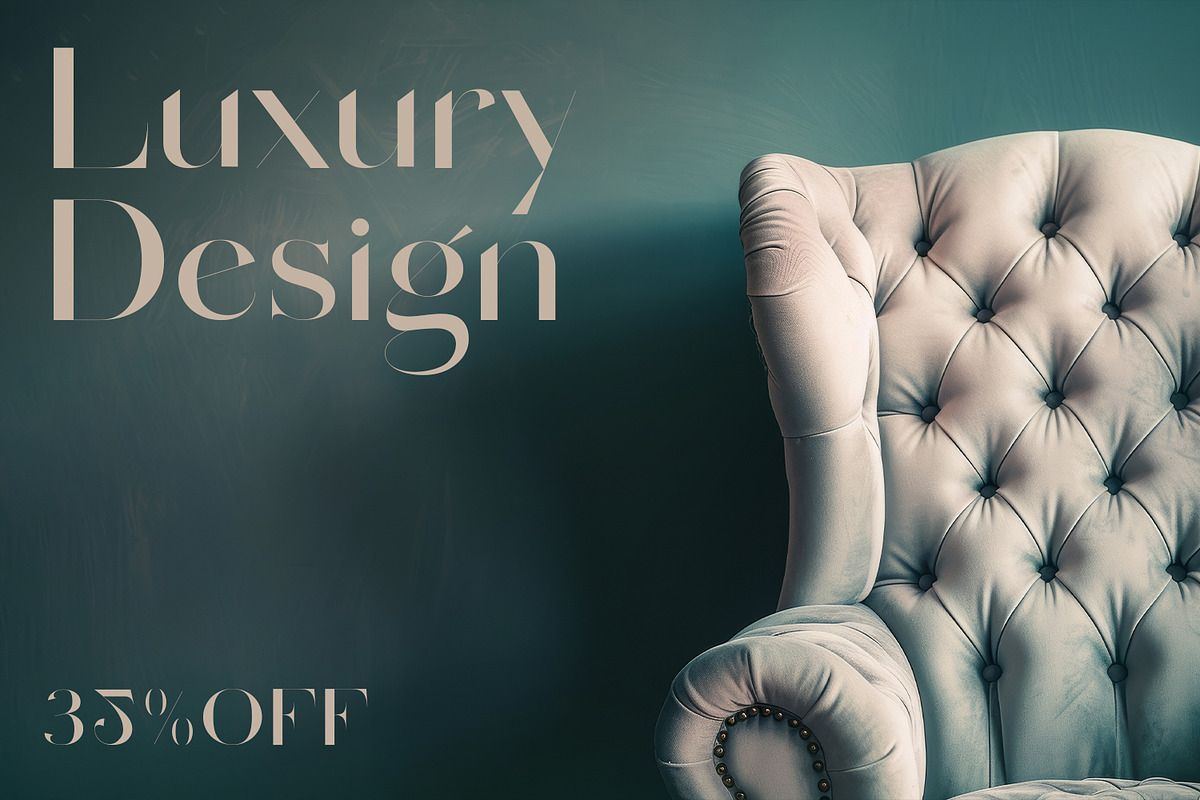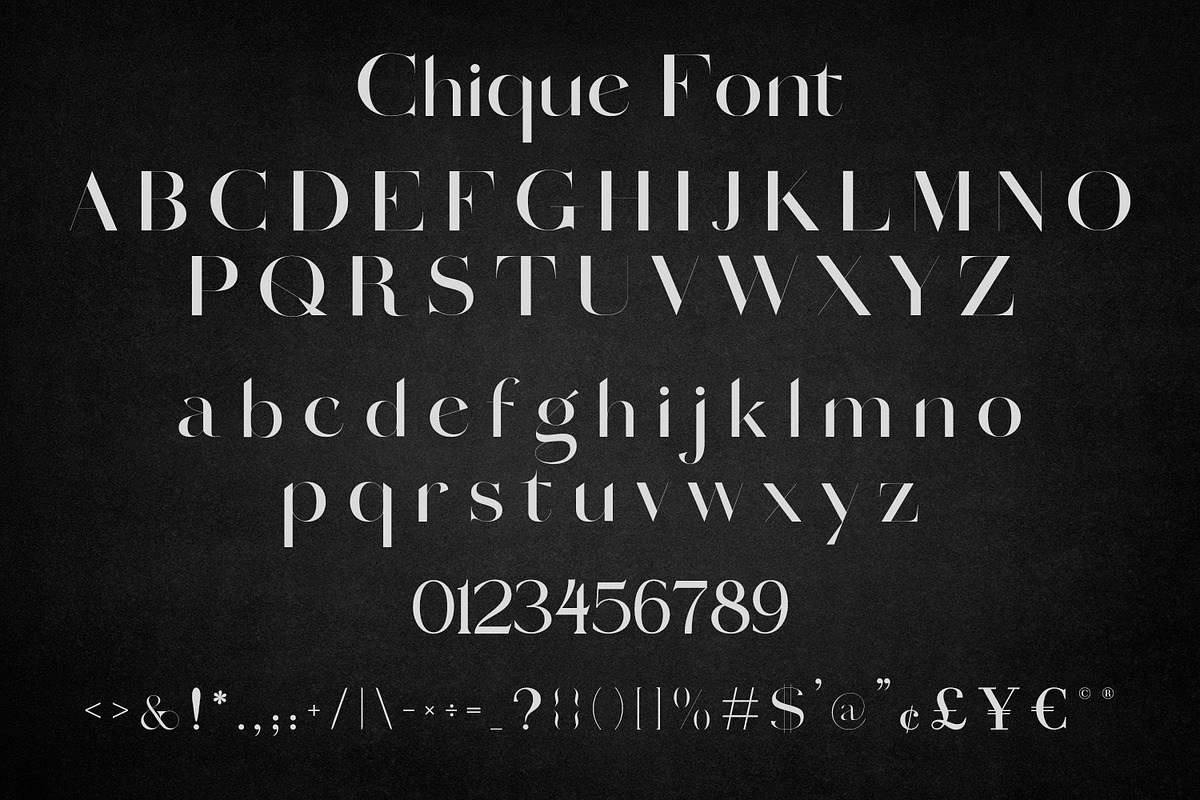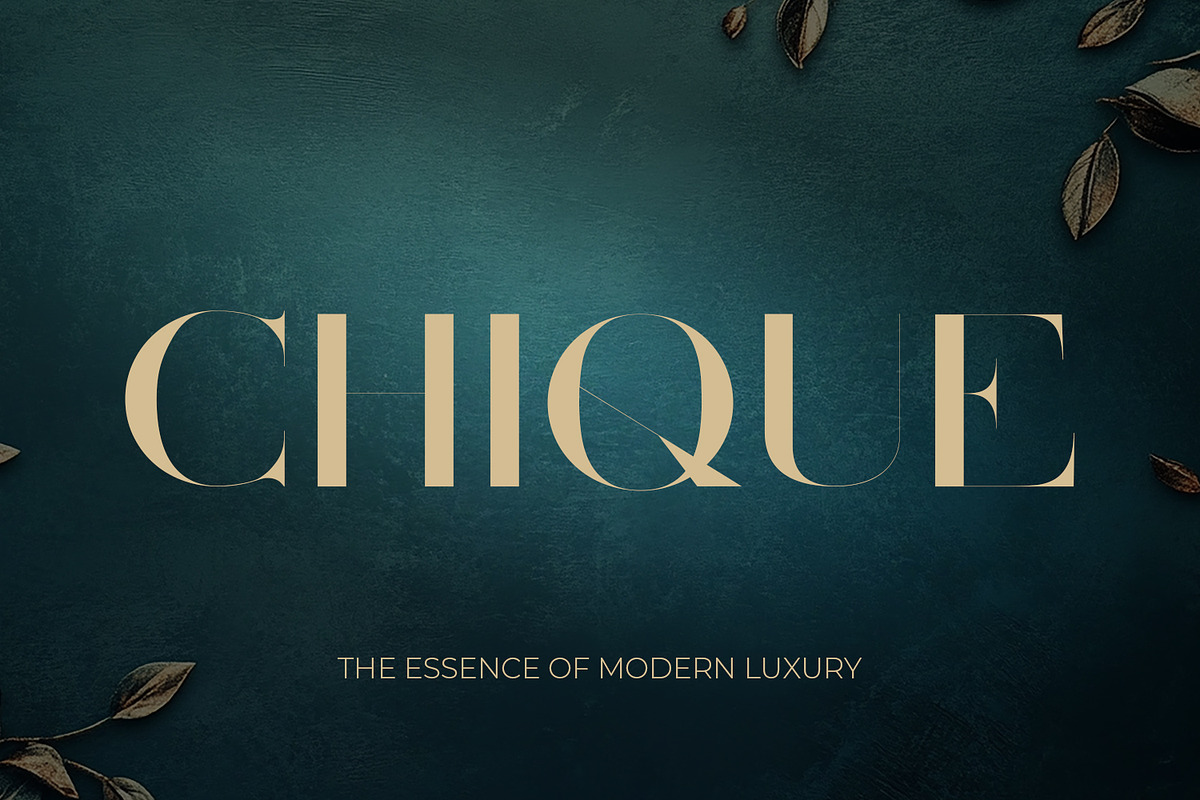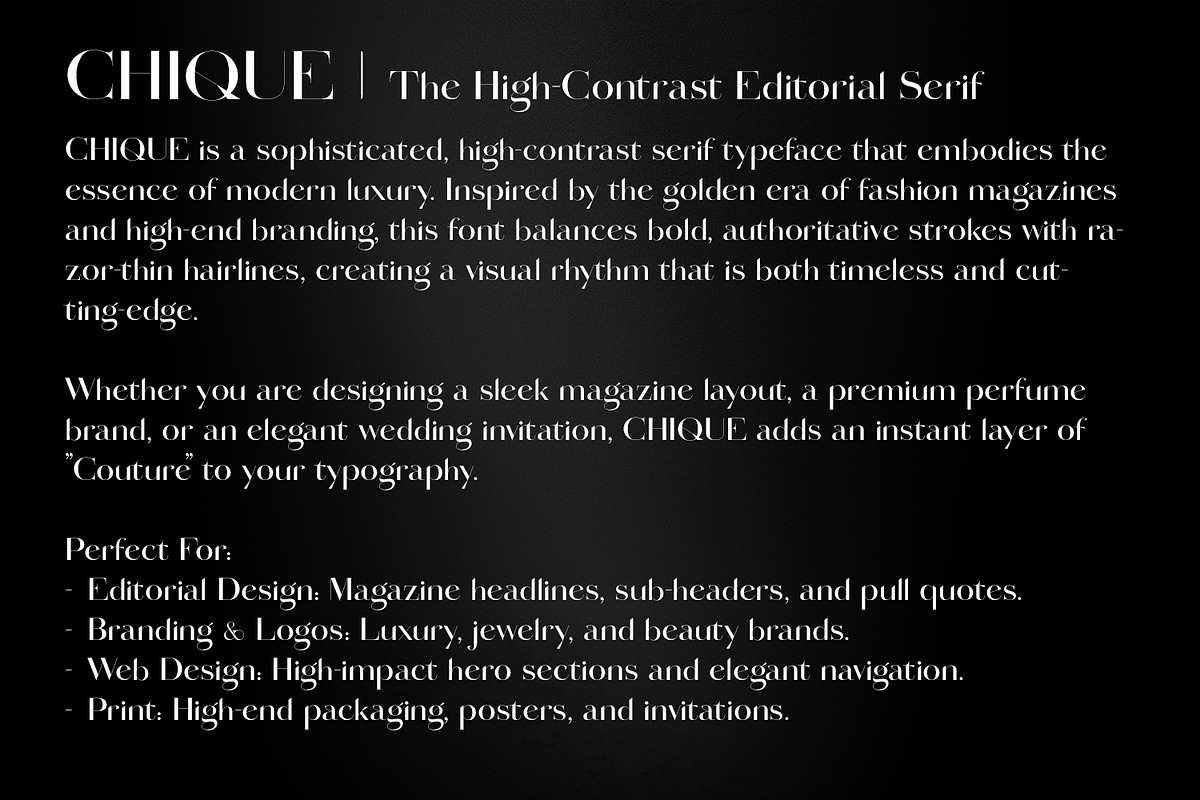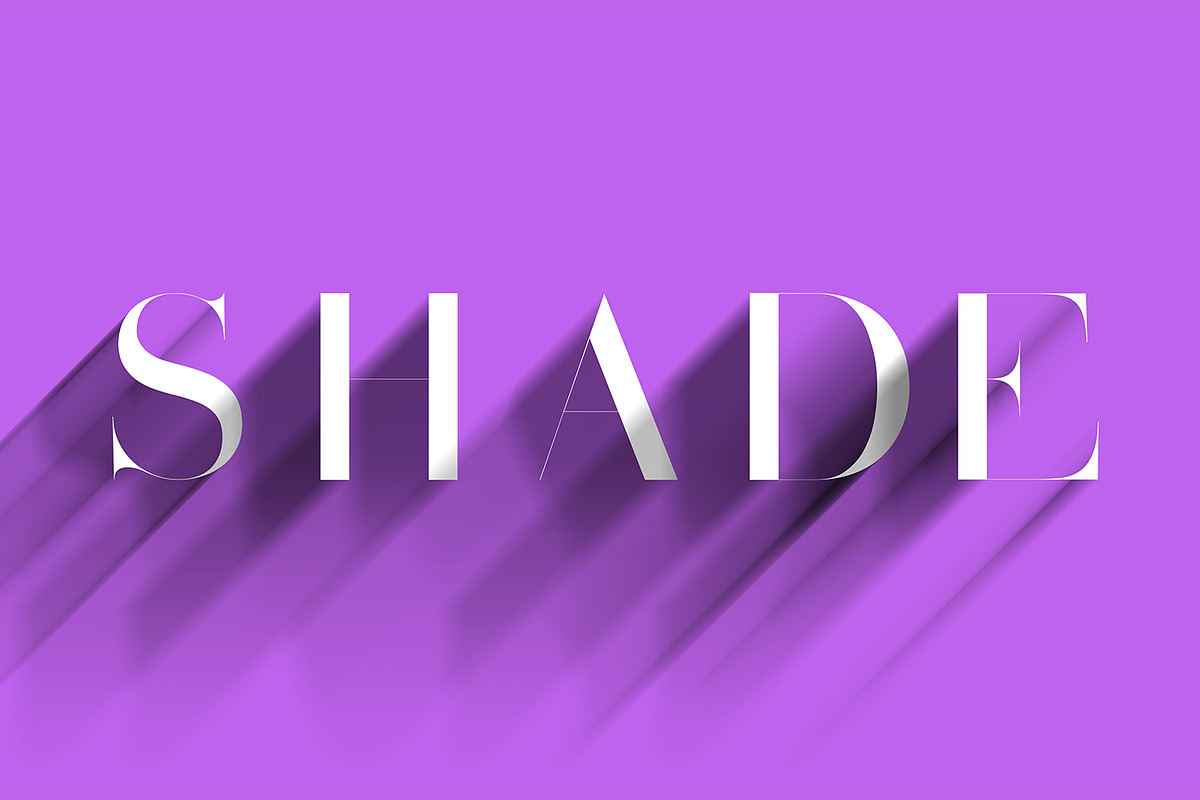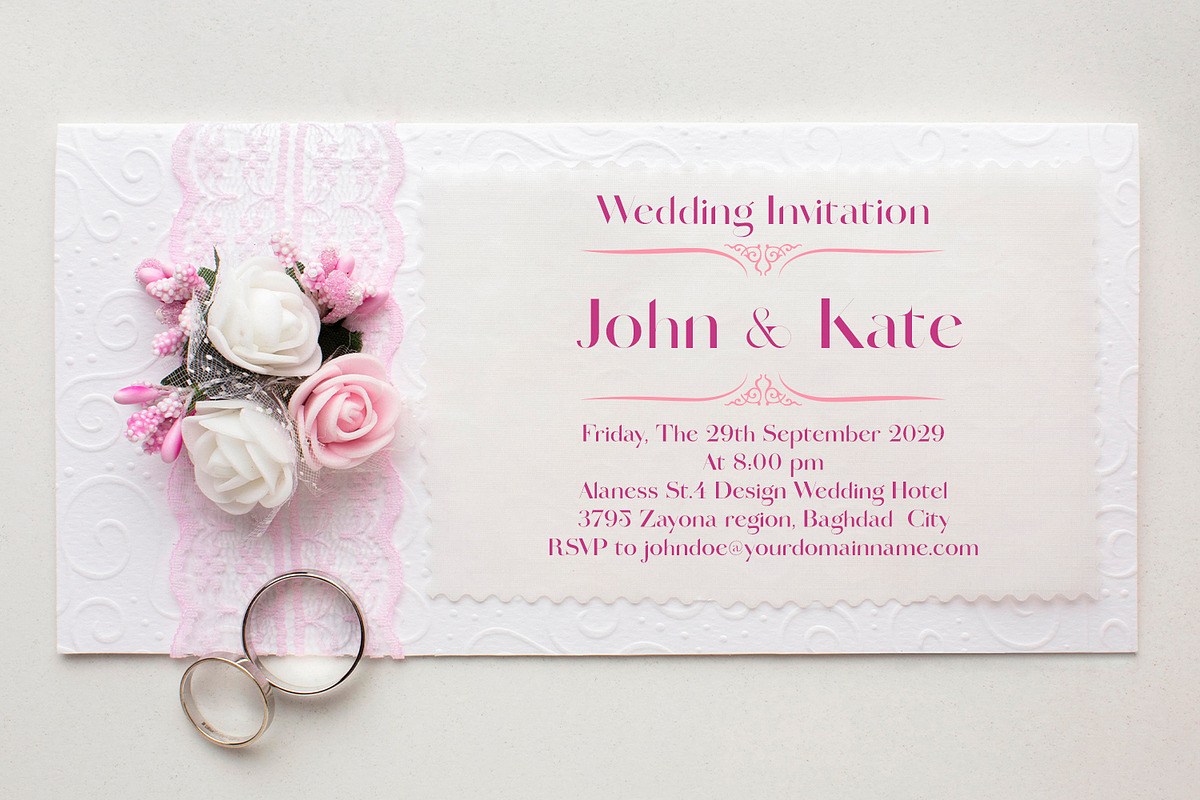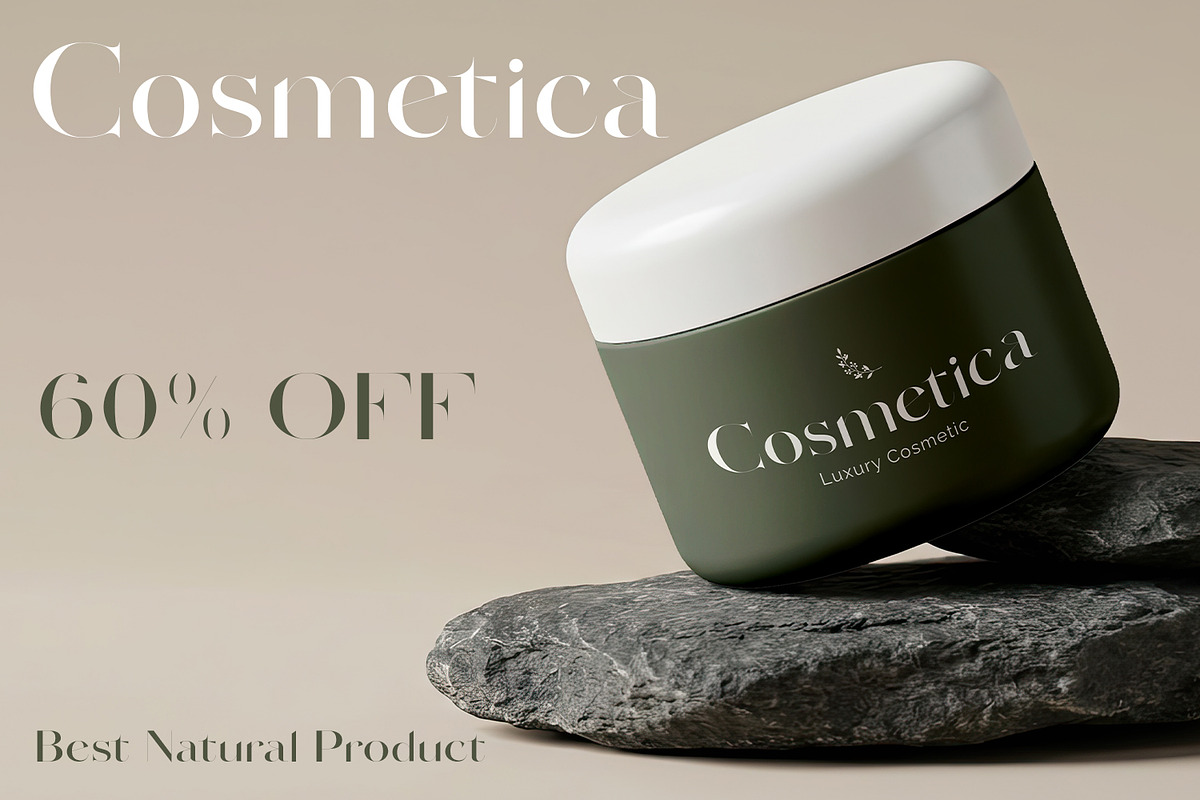
Chique - Luxury Modern Serif
CHIQUE is a meticulously crafted high-contrast serif font designed for high-end branding and professional editorial projects. Featuring a perfect balance of bold strokes and hairline weights, it brings a sophisticated edge to logos, luxury packaging, and premium stationery. With its unique character shapes and full multilingual support, CHIQUE offers a timeless aesthetic for designers seeking elegance and precision in their typography. Perfect for headlines, high-end magazines, and corporate identity systems that require a touch of class and modernism.